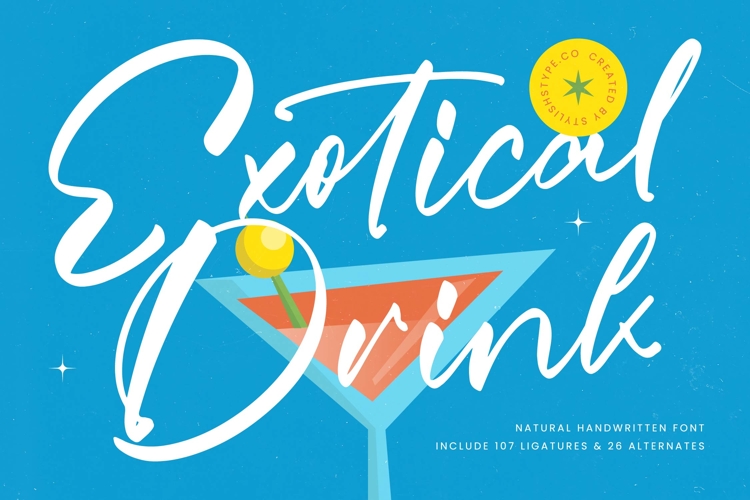
Exotical Drink - Natural Handwritten Font
Exotical Drink is a natural handwritten font that radiates freshness, playful energy, and modern handwritten charm. Designed with 107 ligatures and 26 alternates, this typeface provides outstanding creative flexibility, allowing designers to create unique lettering compositions that feel both authentic and stylish. Each stroke is crafted with organic flow and expressive curves, giving your typography a sense of fun, personality, and sophistication.
The bold handwritten strokes and smooth ligatures of Exotical Drink adapt seamlessly across digital platforms and print applications, making it a versatile font for many creative needs. Perfect for beverage branding, restaurant menus, tropical event posters, social media campaigns, exclusive packaging, and editorial spreads, this script font ensures that your designs carry a distinctive handwritten identity that is both playful and professional.